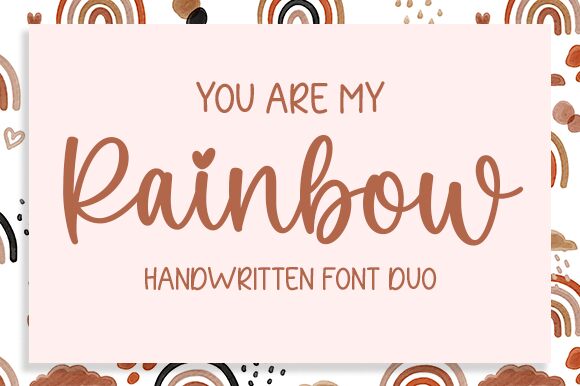
My Rainbow
My Rainbow, the block handwritten font designed by Graphix Line Studio, is the perfect blend of fun and professionalism. Its semi-light weight gives it a playful feel while still maintaining legibility. This font style is ideal for projects that require a personal touch such as invitations, greeting cards, or social media posts. Its unique design will make your project stand out from the crowd and add a touch of whimsy to any design. Whether you're creating a logo or designing an eBook cover, My Rainbow semi-light font is the perfect choice for anyone looking to add a bit of personality to their project.